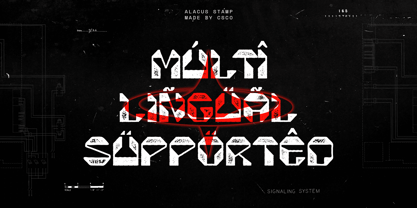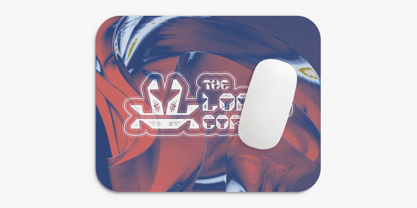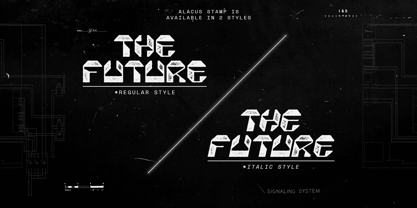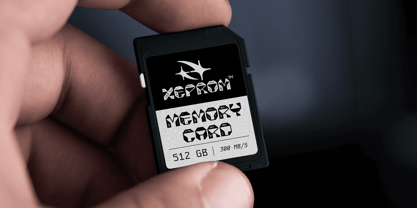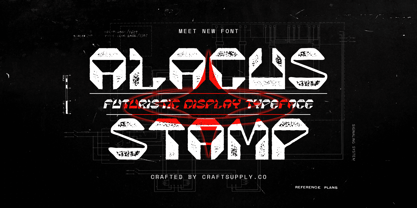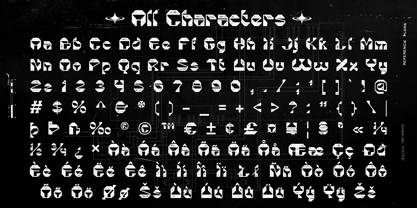
Alacus Stamp
by Craft Supply Co
The Alacus Stamp Font Family was designed by Trio Nazzar Saputra, Wahyu Hadi Yuana and published by Craft Supply Co. Alacus Stamp contains 2 styles and family package options.
Alacus Stamp – Futuristic Display Font
Innovative Geometric Design
Alacus Stamp is a modern display font that showcases geometric and futuristic shapes, characterized by its clean lines and dynamic forms. This innovative design creates a progressive impression, making it a striking choice for contemporary projects.
Layered Stamp Effect for Visual Depth
The layered stamp effect adds an engaging visual dimension and unique character to the font, providing an interesting texture that enhances its overall aesthetic. This distinctive quality allows Alacus Stamp to stand out in a crowded design landscape.
Ideal for Technology-Themed Applications
With its perfect blend of futuristic geometric design and the textured stamp effect, this font is highly suitable for a variety of futuristic and technology-themed designs. Whether used for branding, posters, or promotional materials, Alacus Stamp effectively highlights a modern and sophisticated identity.
Attention-Grabbing Choice
Alacus Stamp captures attention effortlessly, making it an ideal choice for projects seeking to convey an innovative vision. Its bold, clean look ensures that your messaging remains clear and impactful while embodying a forward-thinking aesthetic.